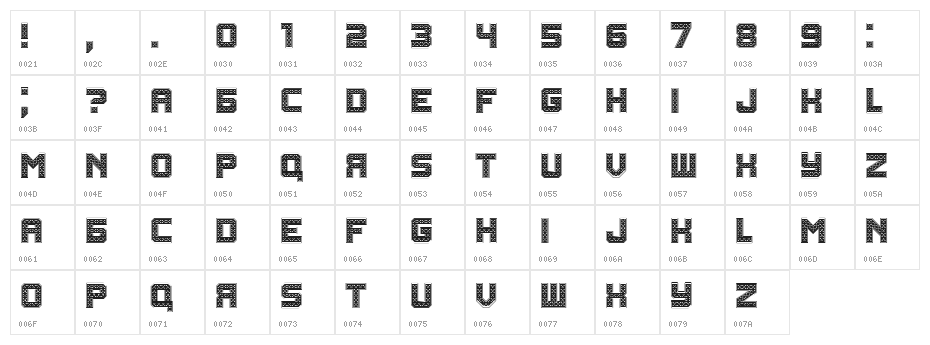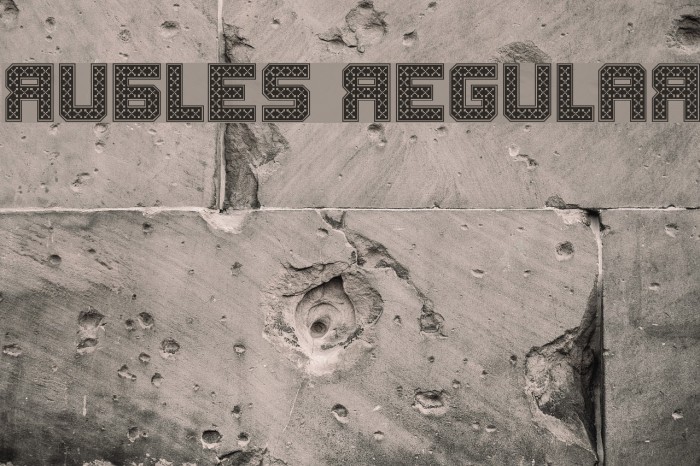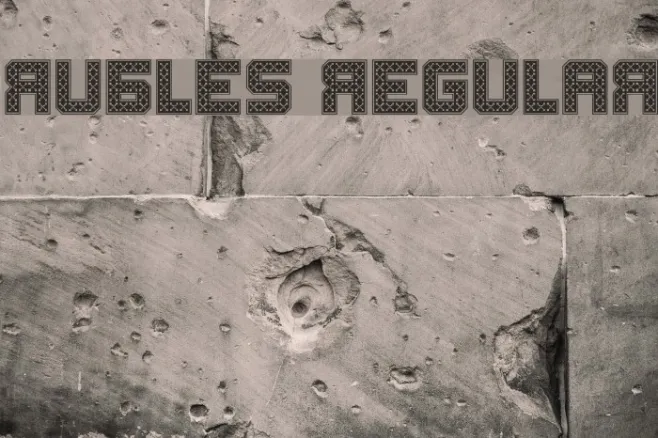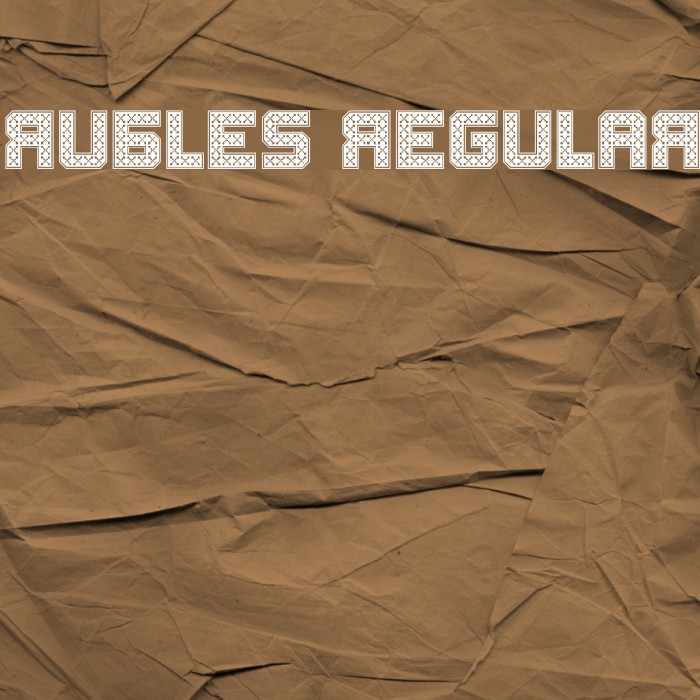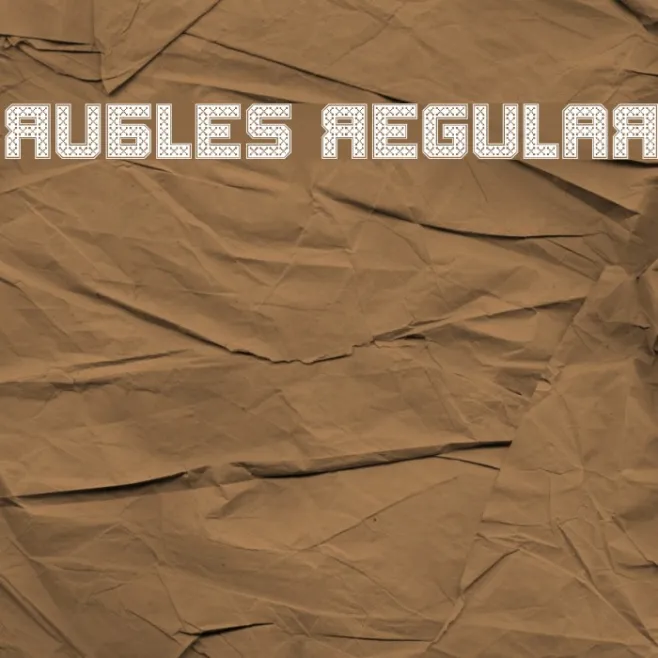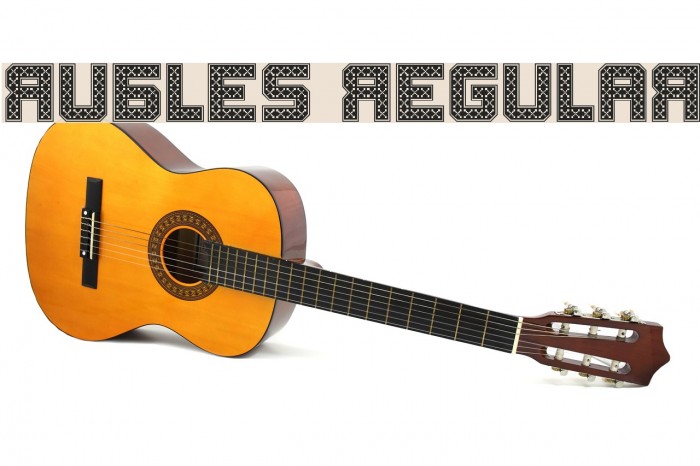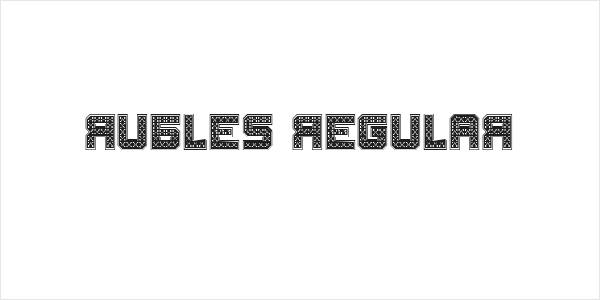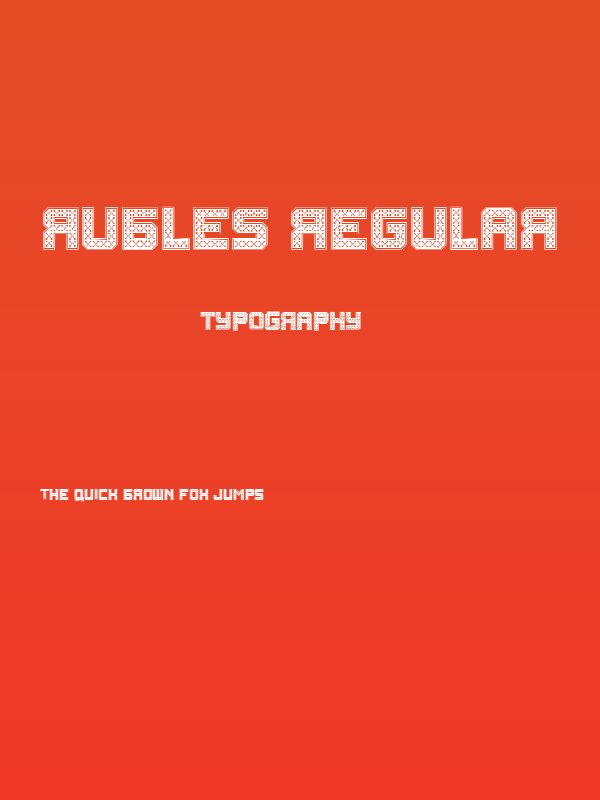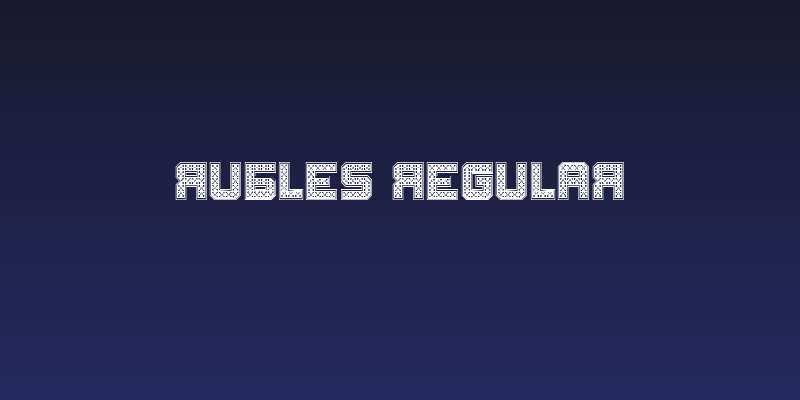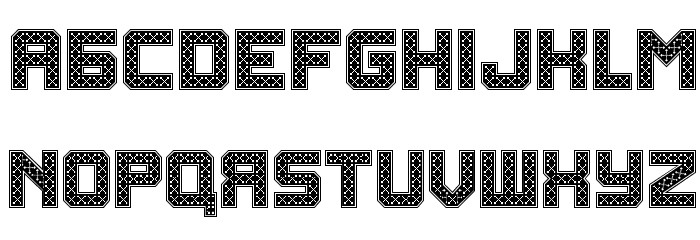
Rubles Regular Font
Rubles Regular Description
This font features a bold, decorative style with a distinct geometric pattern filling each character. The uppercase letters are crafted with a blocky, robust structure, while the intricate internal design adds a unique flair. The characters are evenly spaced, maintaining a consistent and balanced appearance. The numbers and special characters follow the same design principles, ensuring uniformity across all glyphs. This font's striking visual elements make it ideal for attention-grabbing designs.
| Proposed Projects | Ideal for posters, event flyers, branding projects, and any design requiring a bold, eye-catching typeface. |